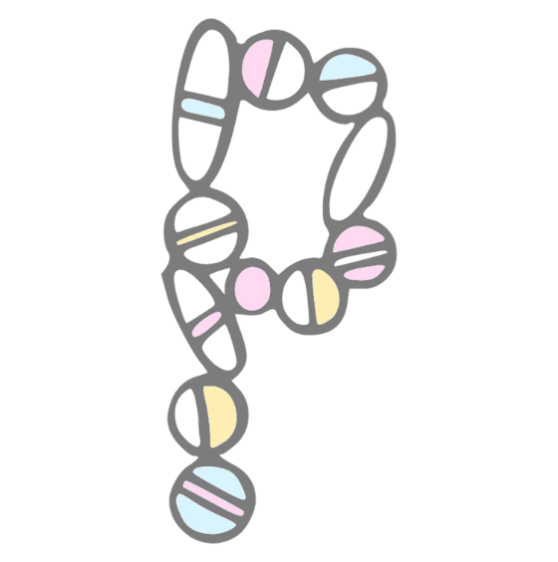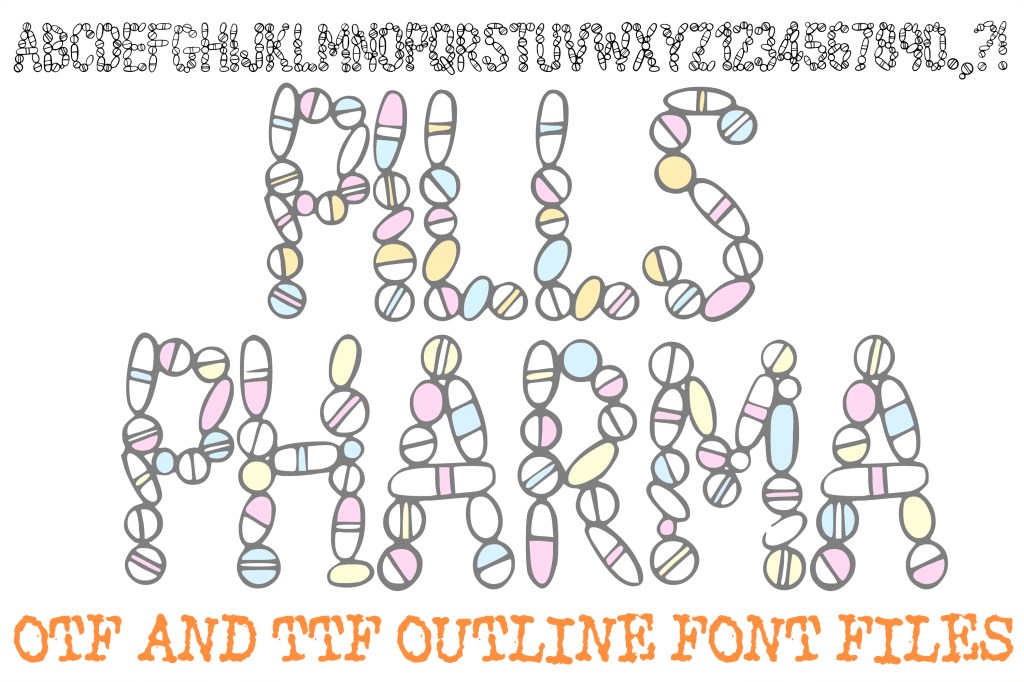
New font alert! Pills and more pills. One for your hay fever, another for your knee.
This was a fun one to draw, though I may have got circle fever by the end of it! So many round pills!